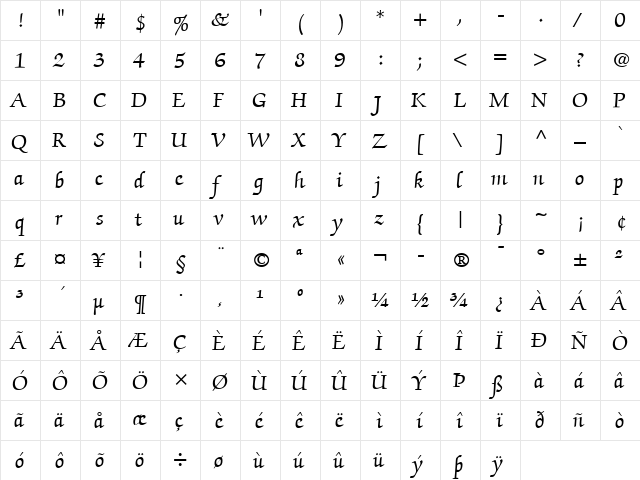
ZapfChancery LT Roman Regular
Design Context for ZapfChancery LT Roman Typeface
ZapfChancery LT Roman is a composed and adaptable typeface that performs quietly and consistently across a wide range of design contexts. Its slender proportions lend an understated elegance to any composition.